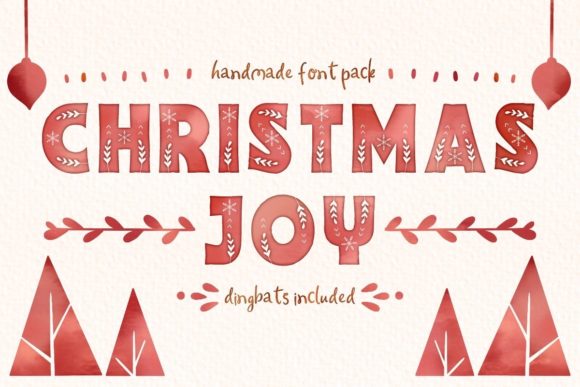
Experience the Magic of Christmas with Christmas Joy Pack Font: A Festive Delight for Your Designs
Welcome to the enchanting world of Christmas Joy Pack Font, a decorative font family that captures the spirit of the holiday season like no other. Designed by Latin Vibes, this playful and creative font pack is a festive treat that will transform your Christmas-themed designs into works of art.
Immerse yourself in the charm of Christmas Joy, a handcrafted font brimming with beautiful snowflakes and delicate twigs intertwined within each character. Let your imagination soar as you unleash the magic of this font, adding a touch of whimsy and cheer to your projects.
Explore a treasure trove of cute dingbat characters, including presents adorned with bows, leaves rustling in the winter breeze, twigs reaching towards the sky, ornaments sparkling with holiday cheer, snowflakes dancing in the air, and Christmas stockings overflowing with gifts. With Christmas Joy Pack Font, your designs will radiate the warmth and wonder of the season.